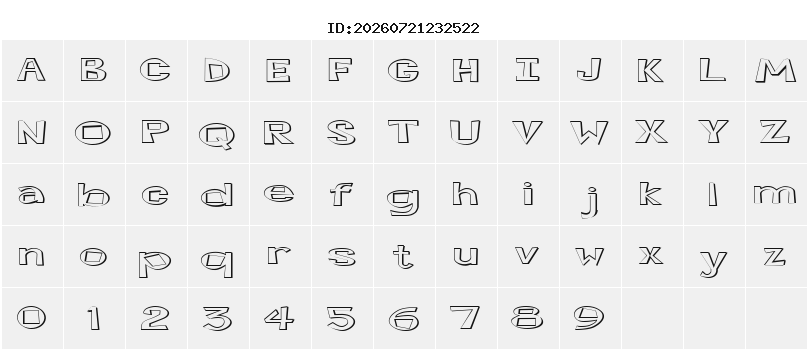
FZ JAZZY 7 3D EX Preview
• Font Name: FZ JAZZY 7 3D EX
• Full Font Name: FZ JAZZY 7 3D EX
About FZ JAZZY 7 3D EX.ttf
FZ JAZZY 7 3D EX.ttf is a modern, elegant sans-serif font designed for ultimate readability and visual harmony. Perfect for branding, headlines, web design, and print materials.